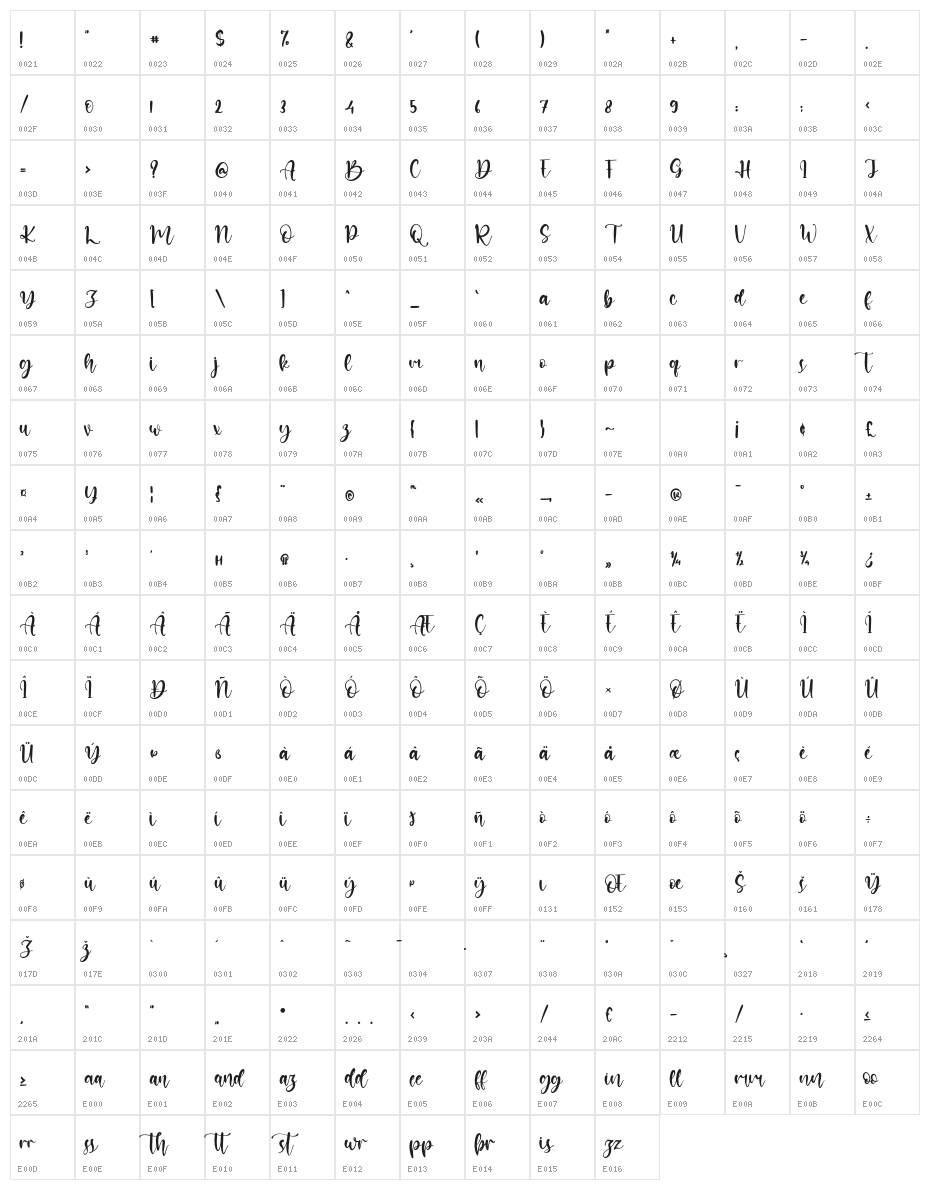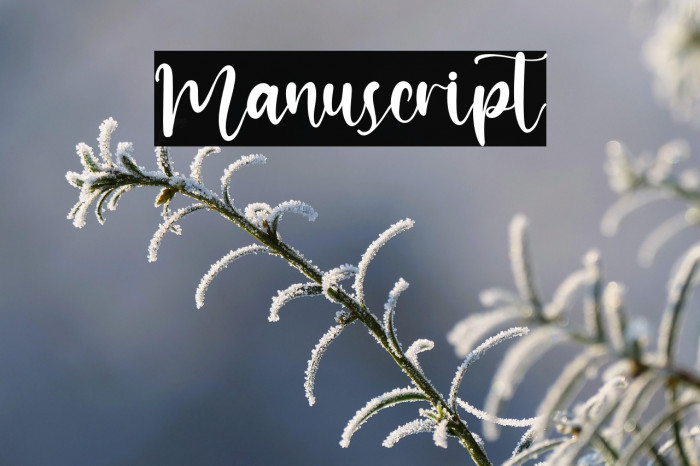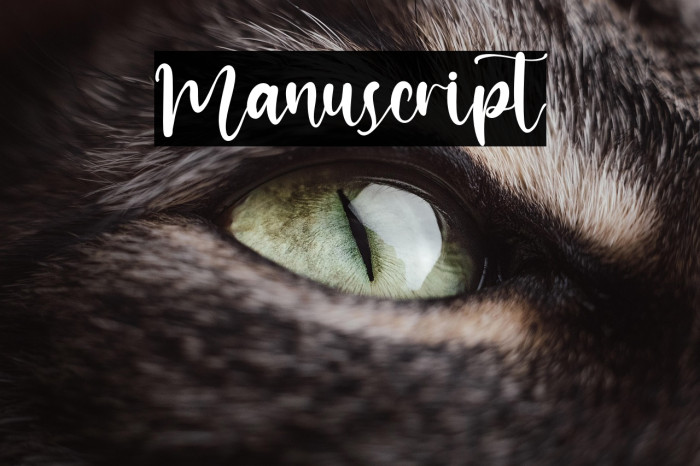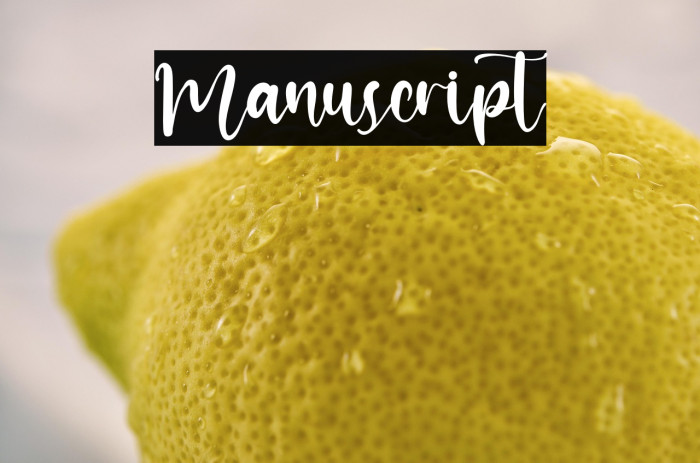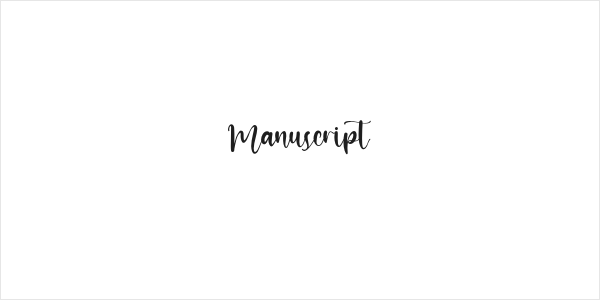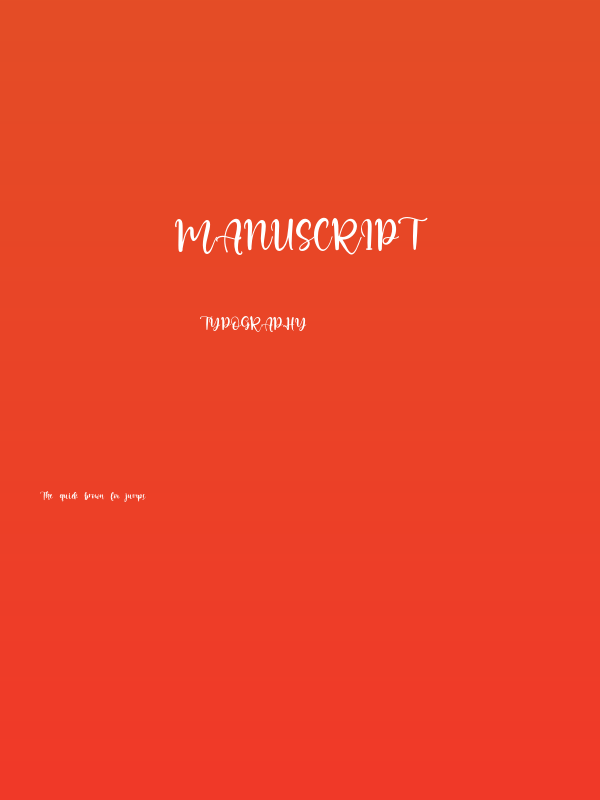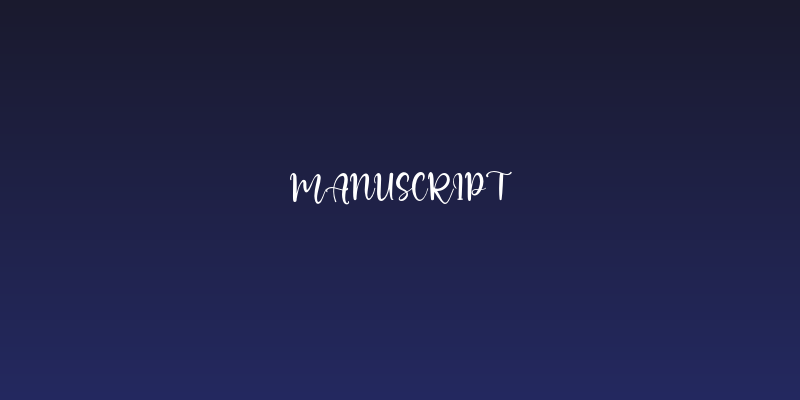
Manuscript Font
Manuscript Description
This font exhibits a flowing, cursive style with elegant loops and swashes, giving it a handwritten appearance. The uppercase letters are bold and expressive, with distinctive flourishes that add a touch of sophistication. The lowercase letters maintain a consistent flow, enhancing readability while preserving the artistic flair. Numbers and special characters are crafted to match the overall aesthetic, ensuring a cohesive look across all text elements. This font is ideal for projects that require a personal, artistic touch, such as invitations, greeting cards, or branding materials.